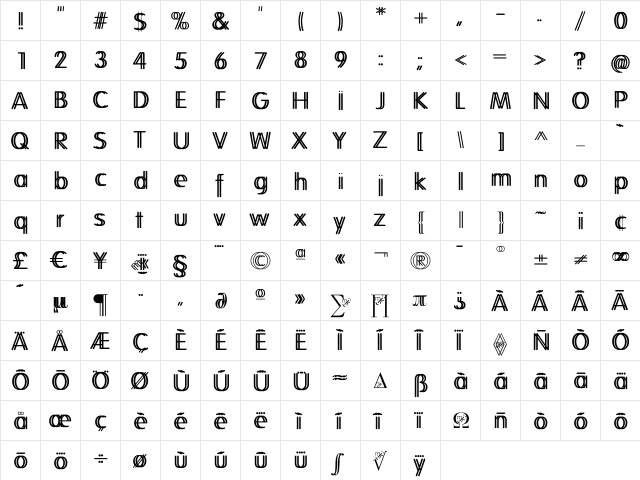
FolksTwins Regular
Design Context for FolksTwins Typeface
FolksTwins takes a measured approach to typography — its balanced proportions and neutral character make it a reliable workhorse for both digital and print work.